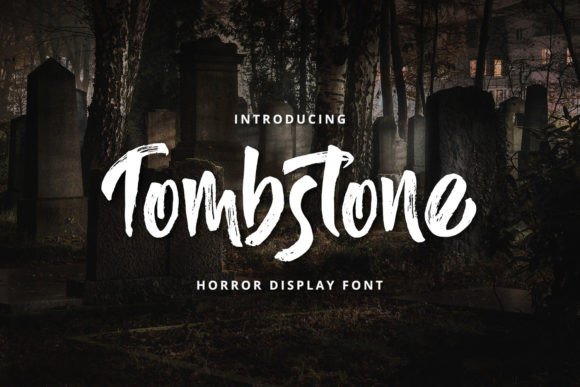
Behold, the captivating and eerie Tombstone font – a horror display font with a unique fusion of elegance and playfulness, ready to cast a spell on your designs. Crafted by the ingenious alpapranastudio, Tombstone is a font that will effortlessly add a touch of macabre charm to your creative endeavors.
Unleash the haunting beauty of Tombstone on your wedding monogram and watch as it transforms into a symbol of eternal love, infused with a hint of mystery. Let your imagination run wild as you explore the endless possibilities of this versatile font, perfect for branding, logo design, lettering, logotypes, and more.
Picture the captivating allure of your designs adorned with Tombstone's alluring curves and sharp edges, promising to leave a lasting impression on your audience. Elevate your clothing line with unique designs that ooze personality, create posters that demand attention, and design magazine covers that spark intrigue.
Immerse yourself in the dark and alluring world of horror with Tombstone, the perfect font for conjuring an atmosphere of suspense and intrigue. Create packaging that entices customers with its mysterious charm, design shopping bags that turn heads wherever you go, and craft t-shirts that exude an aura of individuality.
With Tombstone, you'll embark on a creative journey like no other, where your imagination will flourish amidst the beauty of darkness. Whether you're designing book covers that haunt the mind, capturing the essence of special events with haunting elegance, or simply seeking to add a touch of the macabre to your personal projects, Tombstone is your perfect companion.
Dare to embrace the allure of the unknown and let Tombstone guide you into a world of enchanting darkness and captivating beauty. Unleash the power of this font and witness the transformation of your designs into mesmerizing works of art.